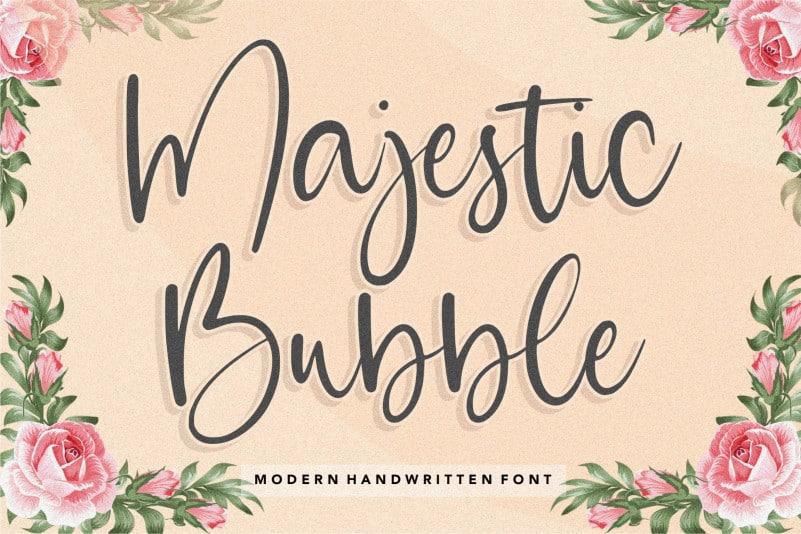
Majestic Bubble Handwritten Font
Majestic Bubble is a flowing and relaxed handwritten font. Fall in love with its incredibly versatile style and use it to create gorgeous wedding invitations, beautiful stationary art, eye-catching social media posts, and much more!